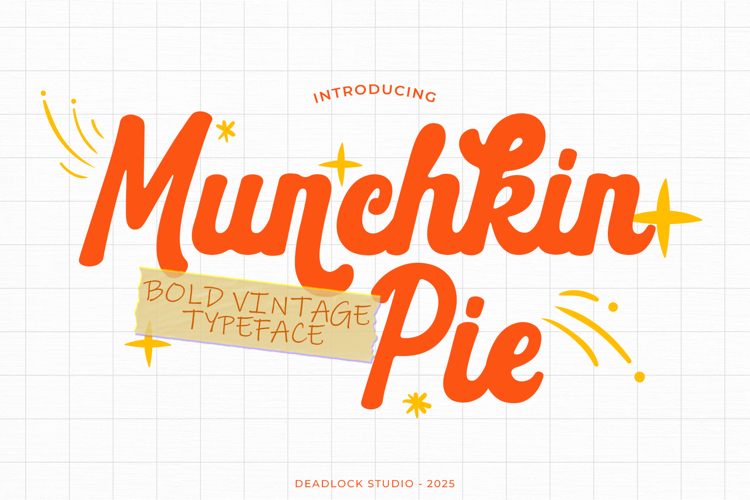
Munchkin Pie is a sweet and playful handwritten font that brings a cozy, cheerful vibe to your creative projects!
Perfect for quotes, stickers, mugs, shirts, greeting cards, and more.